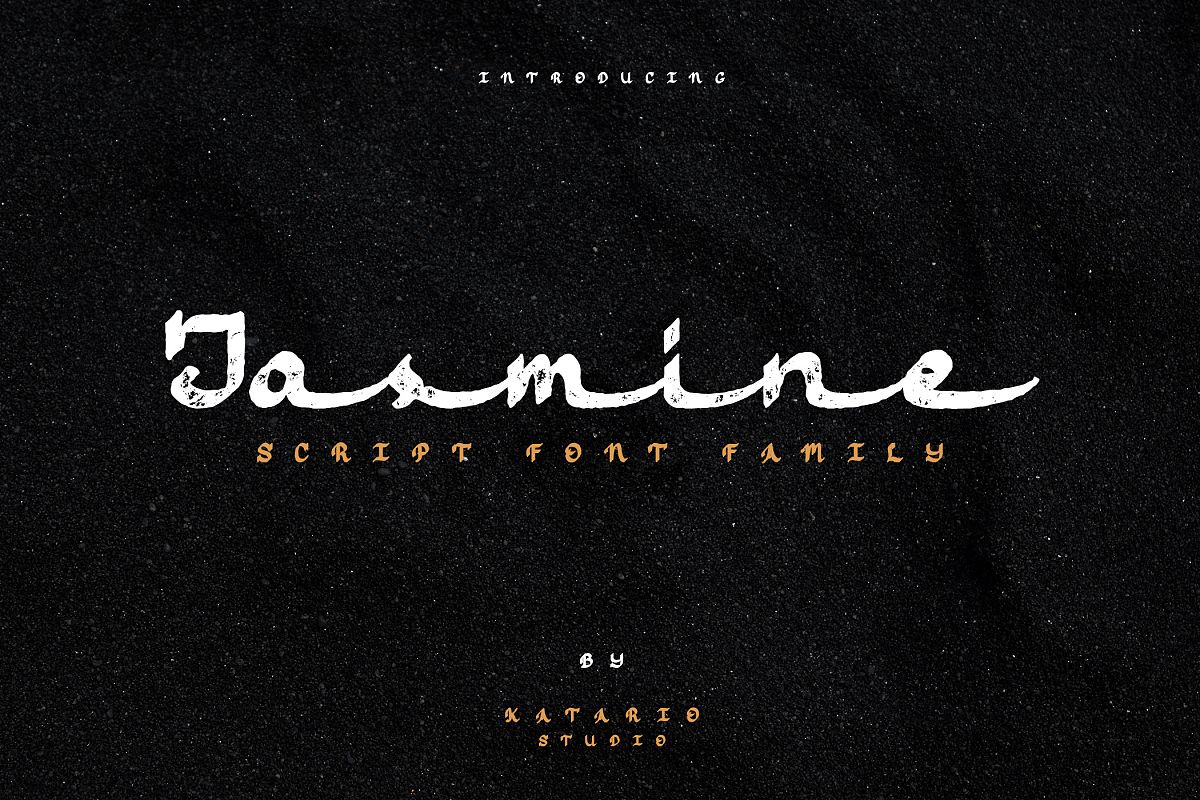
Created By Katario
Jasmine Script
Jasmine script is a beautiful brush script font. This font family is perfect for any projects, from branding to advertising. specially for product logo and logotype.
Jasmine Script
By Katario